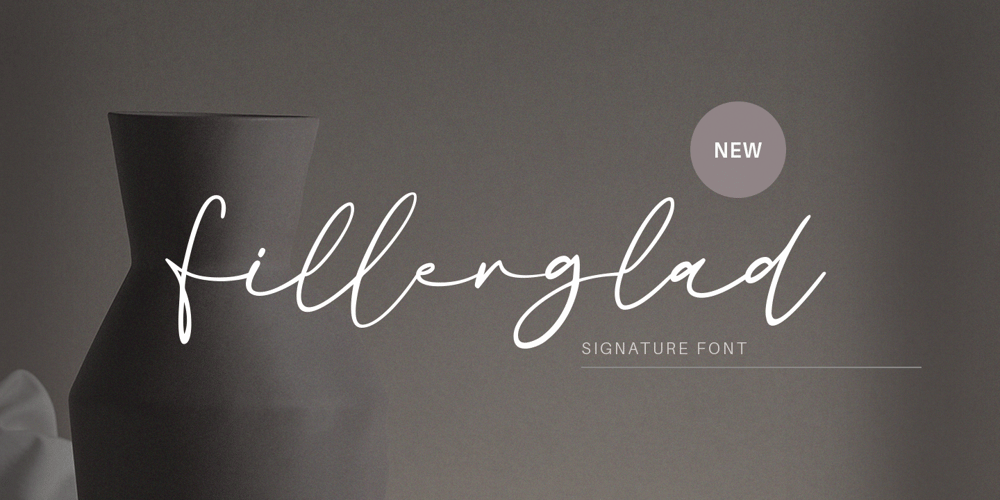
Fillerglad Font Family was designed by Hendry Juanda and published by Letterhend. Fillerglad contains 1 styles and family package options. Introducing, Fillerglad Script – an authentic hand writing with natural signature style. This type of font perfectly made to be applied especially in logo, and the other various formal forms such as invitations, labels, logos, magazines, books, greeting / wedding cards, packaging, fashion, make up, stationery, novels, labels or any type of advertising purpose.Features : uppercase & lowercase numbers and punctuation multilingual alternates and ligatures swashes PUA encoded We highly recommend using a program that supports OpenType features and Glyphs panels like many of Adobe apps and Corel Draw, so you can see and access all Glyph variations. How to access opentype feature : letterhend.com/tutorials/using-opentype-feature-in-any-software/